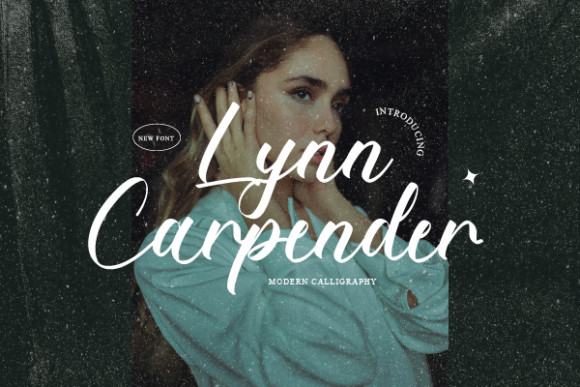
Step into the realm of elegance and sophistication with Lynn Carpender, a script font that exudes charm and creativity. Its beautiful strokes dance across the page like a symphony of ink, evoking a sense of timeless beauty. Embrace the allure of Lynn Carpender and let your designs blossom with captivating allure.
Immerse yourself in the world of fashion and let Lynn Carpender be your muse. This font is the epitome of style and grace, perfectly suited for fashion websites, blogs, and social media posts. Its delicate curves and sweeping lines will elevate your designs to new heights of sophistication.
With Lynn Carpender, you'll have the power to create designs that resonate with your audience. Its versatility knows no bounds, allowing you to effortlessly craft stunning logos, eye-catching headlines, and captivating invitations. Let your creativity soar and let Lynn Carpender guide you towards design excellence.
Experience the allure of Lynn Carpender and elevate your projects to new heights. Its timeless beauty and modern flair will leave a lasting impression on your audience. Embrace the elegance of Lynn Carpender and unlock the full potential of your creative vision.